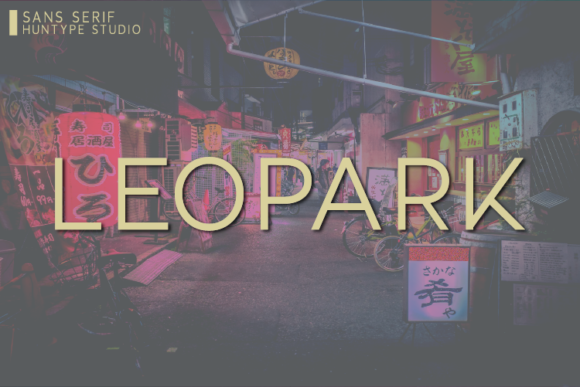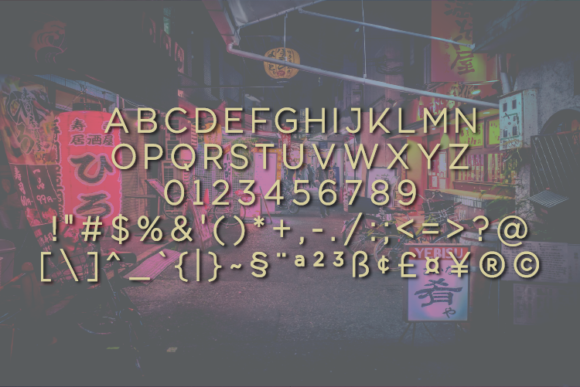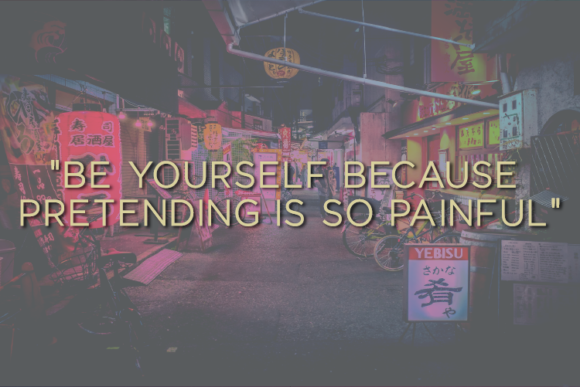
Leopark Font: A Modern & Minimalist Sans Serif for Logo Design
About the Leopark Font
From logos to headlines, the Leopark Font is the perfect choice for making a lasting impression. Leopark is a thin lettered and simple sans serif font. With smooth and clean lines, this font works beautifully for logos, branding, and web headings.
Its minimalist aesthetic makes Leopark ideal for modern branding projects, particularly those emphasizing clean lines and sophistication. It excels in headlines, short text blocks, and logos, lending a sleek and contemporary feel. However, its thin weight makes it unsuitable for body text or lengthy paragraphs; readability suffers at smaller sizes.
Leopark’s personality is undeniably modern and elegant. For a balanced pairing, consider a warm, slightly rounded sans-serif like Lato or Open Sans for body copy, or a classic serif like Merriweather for a touch of traditional contrast.
Alternatively, for a more playful feel, a geometric sans-serif such as Montserrat could be used for supporting elements. Avoid pairing it with overly ornate or decorative fonts, as this would clash with its clean simplicity.
Leopark Font Usage Examples
Leopark Font Example